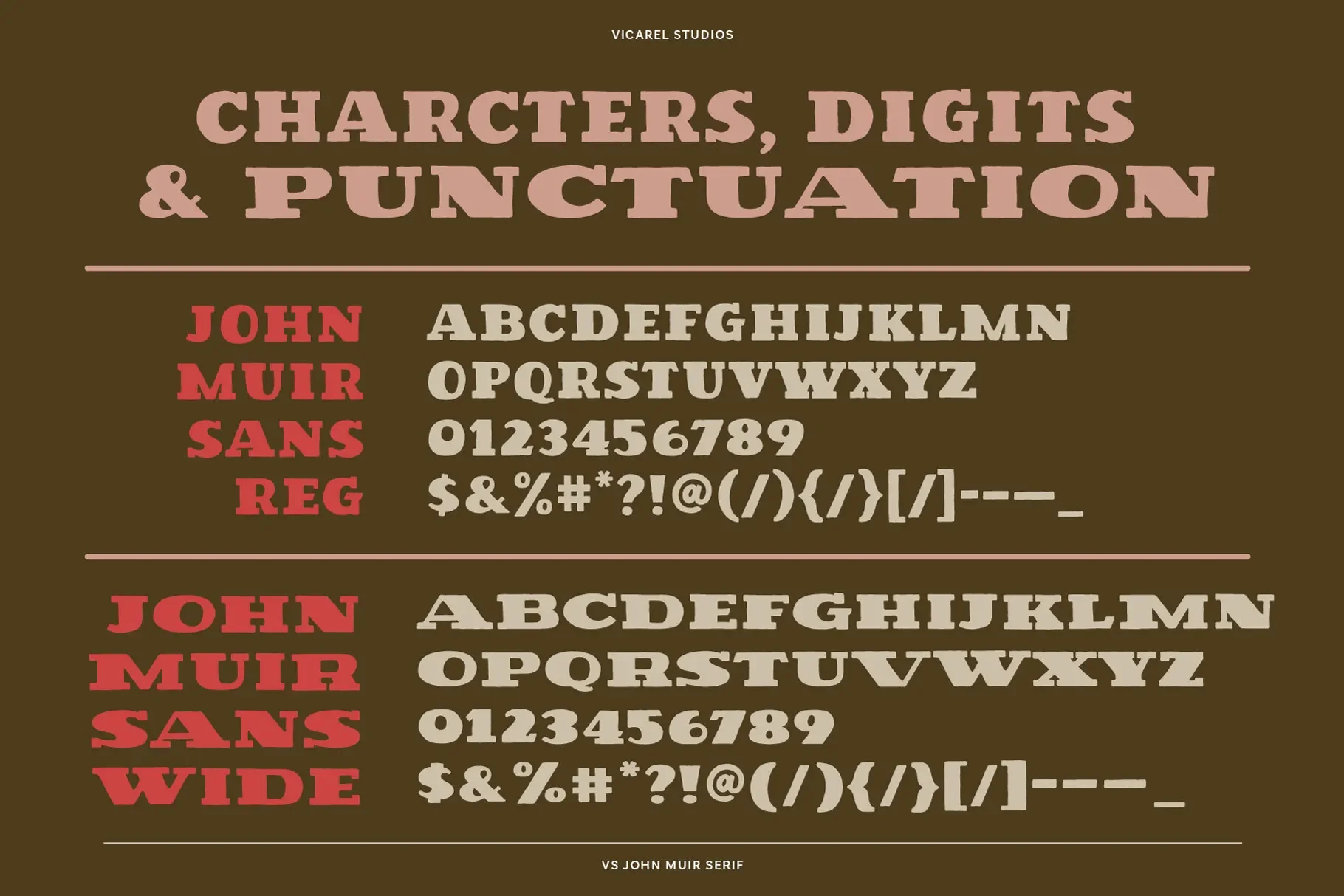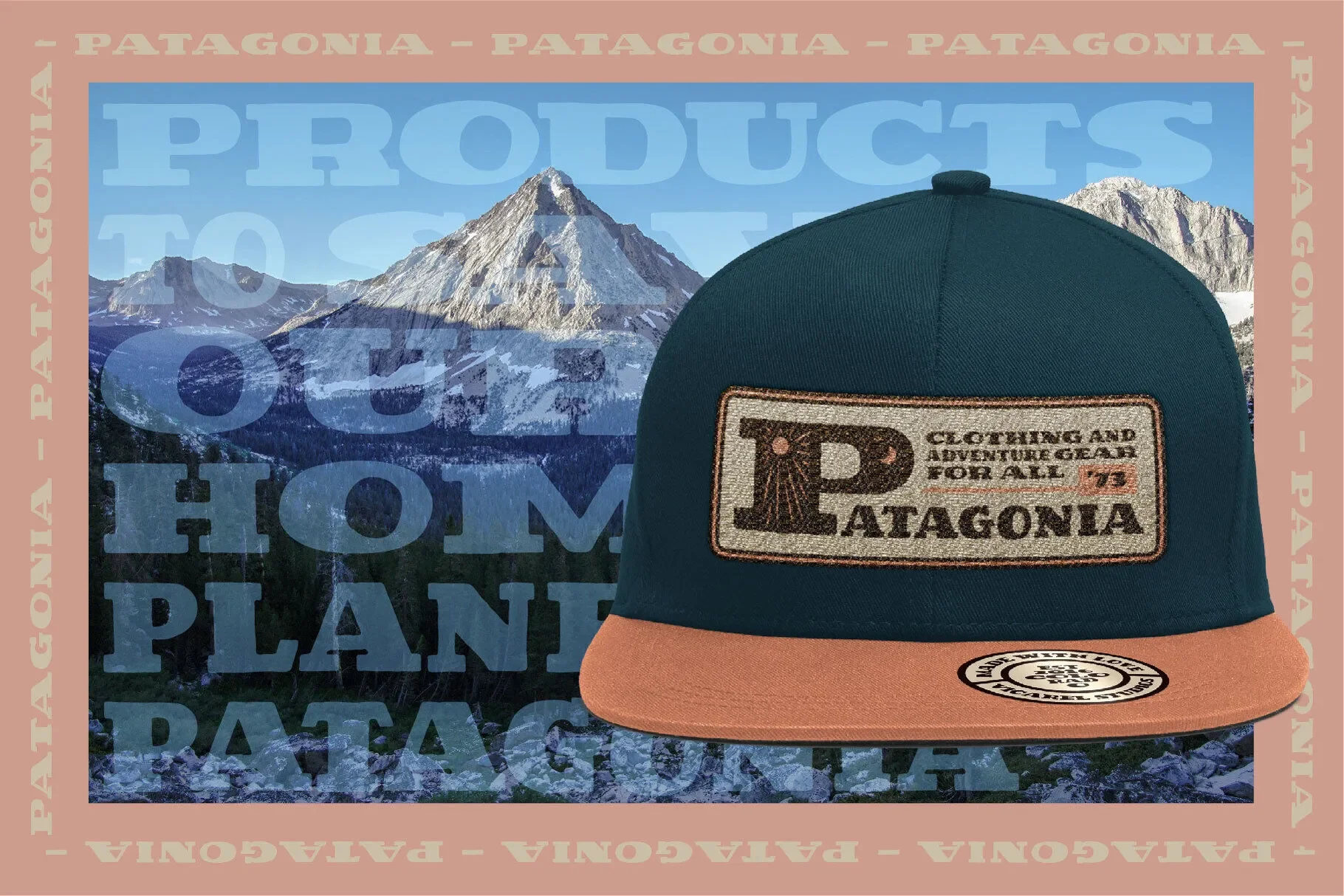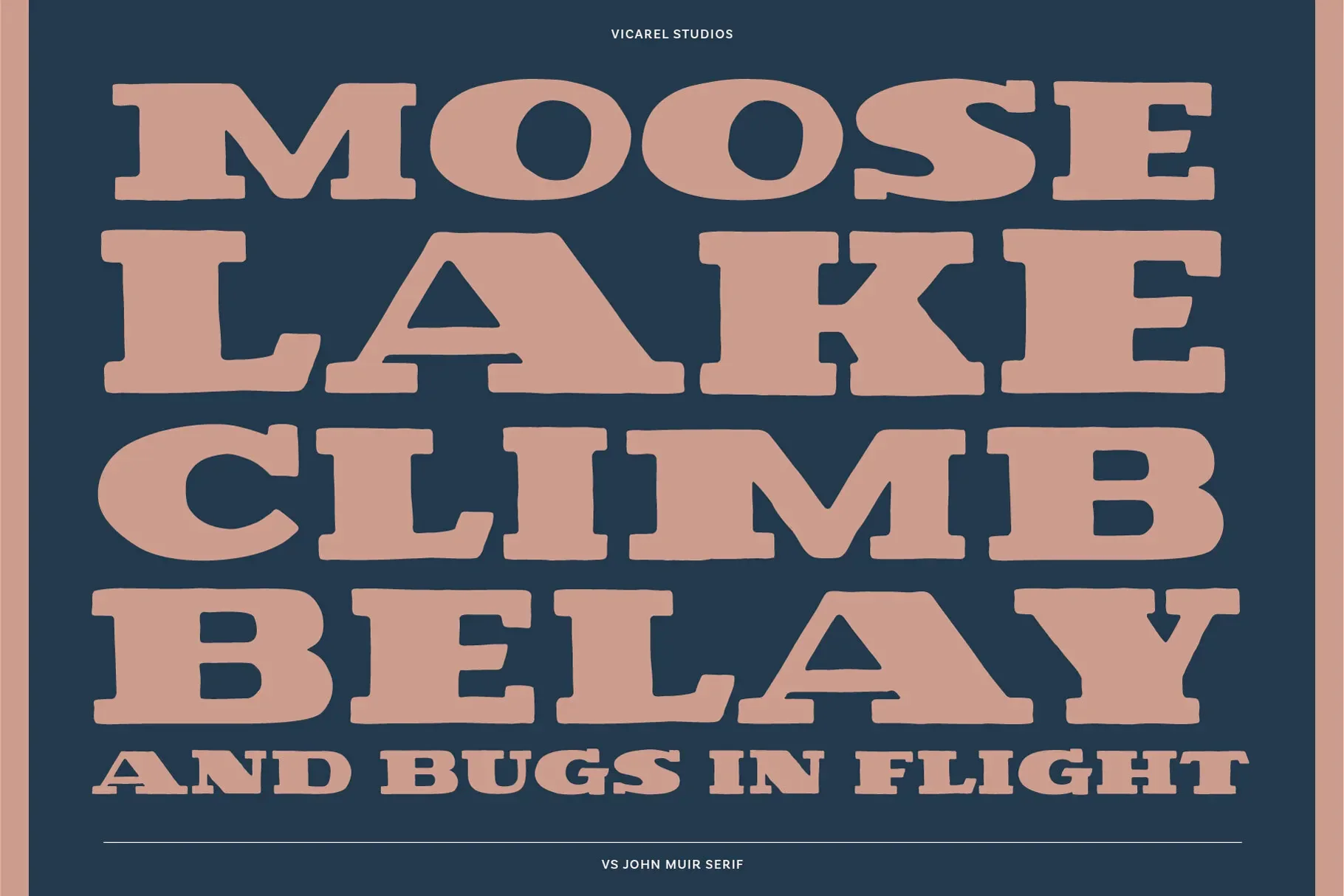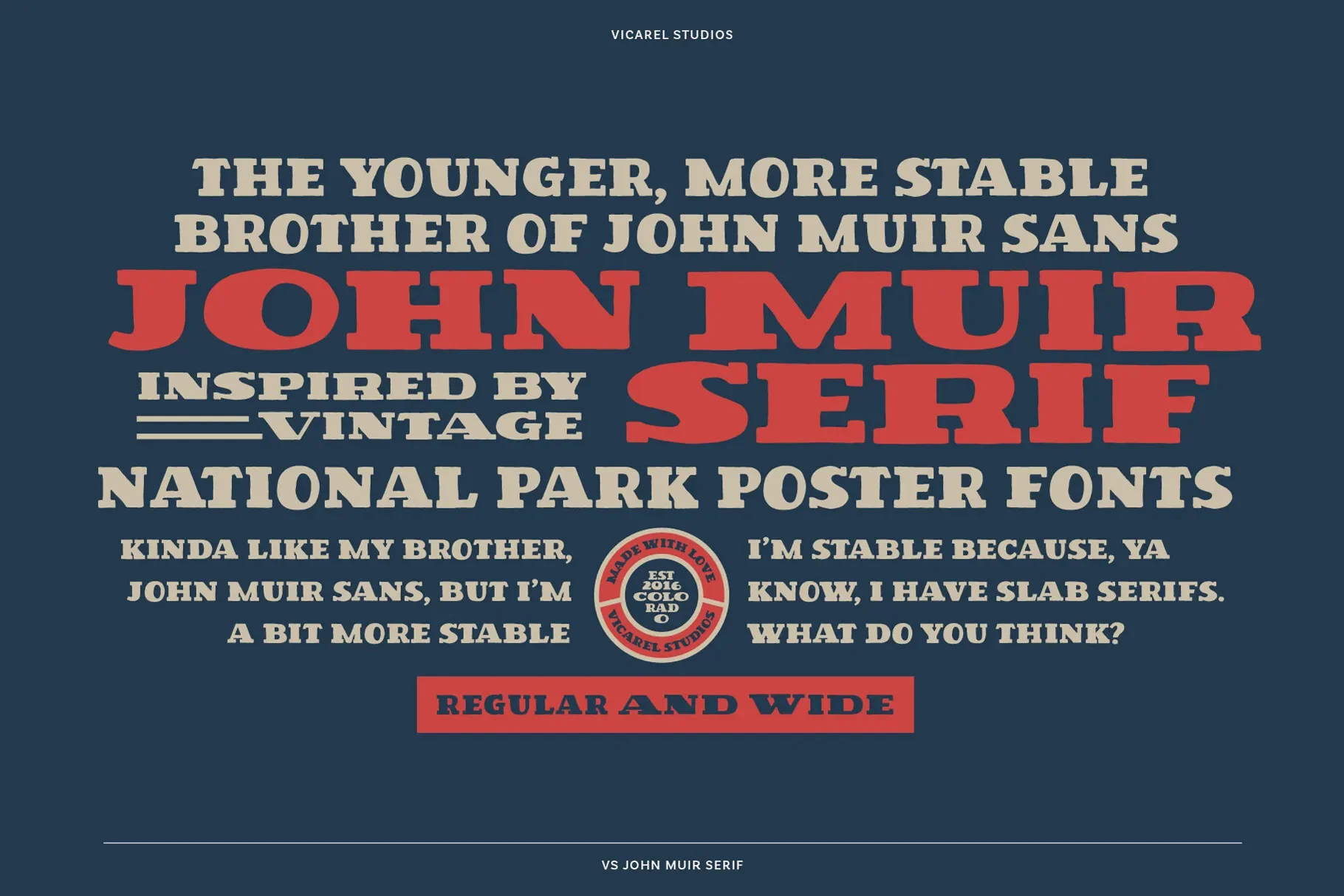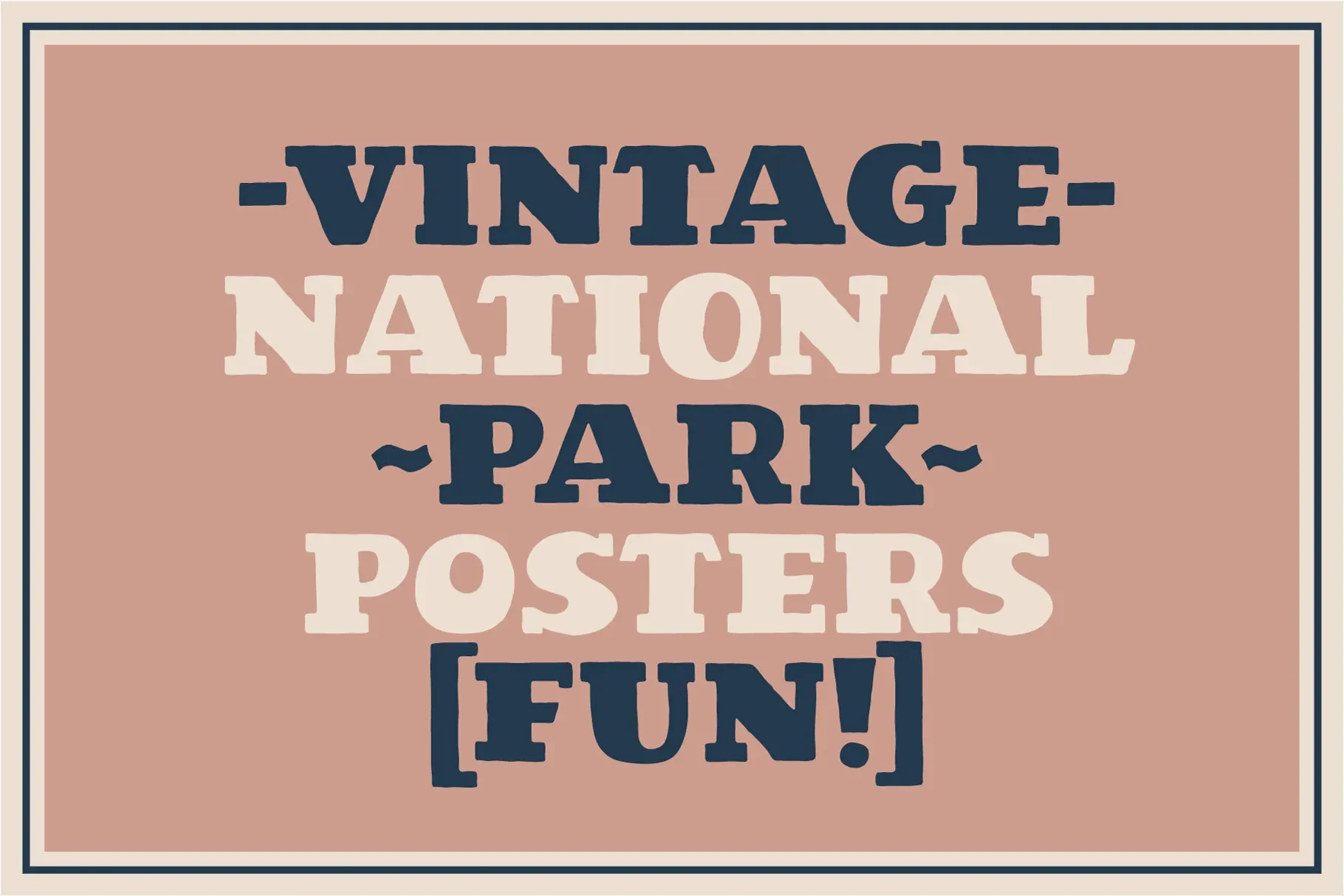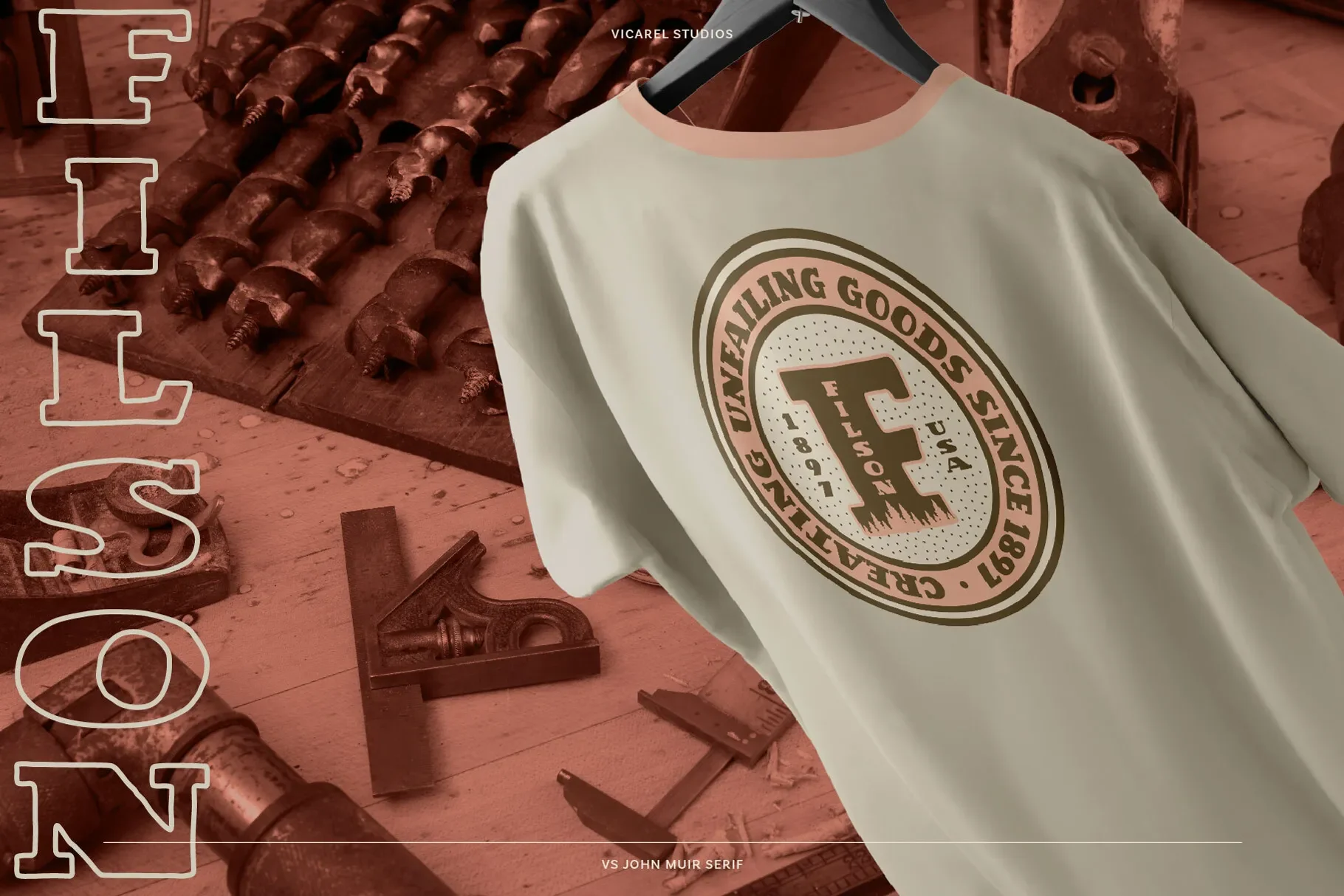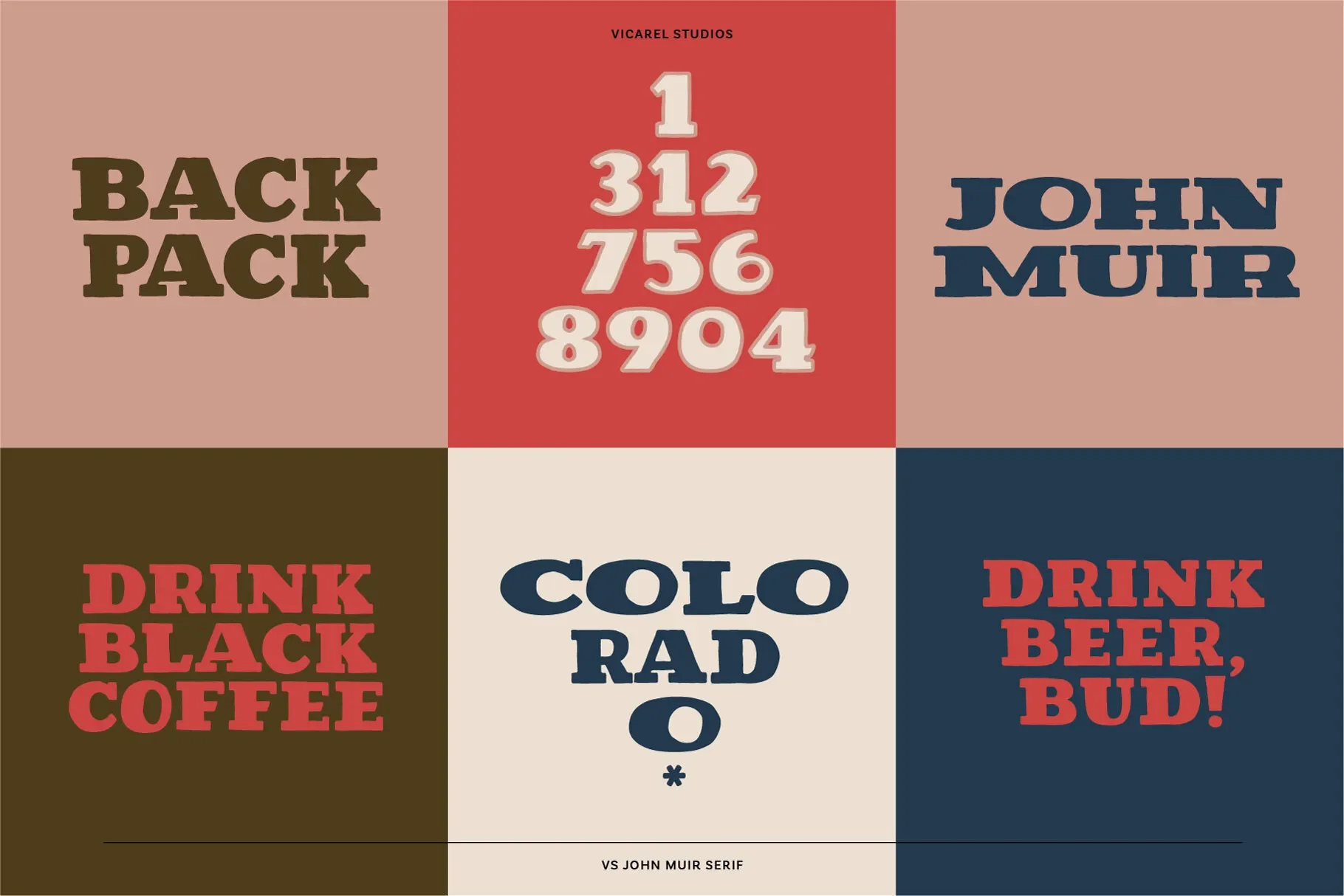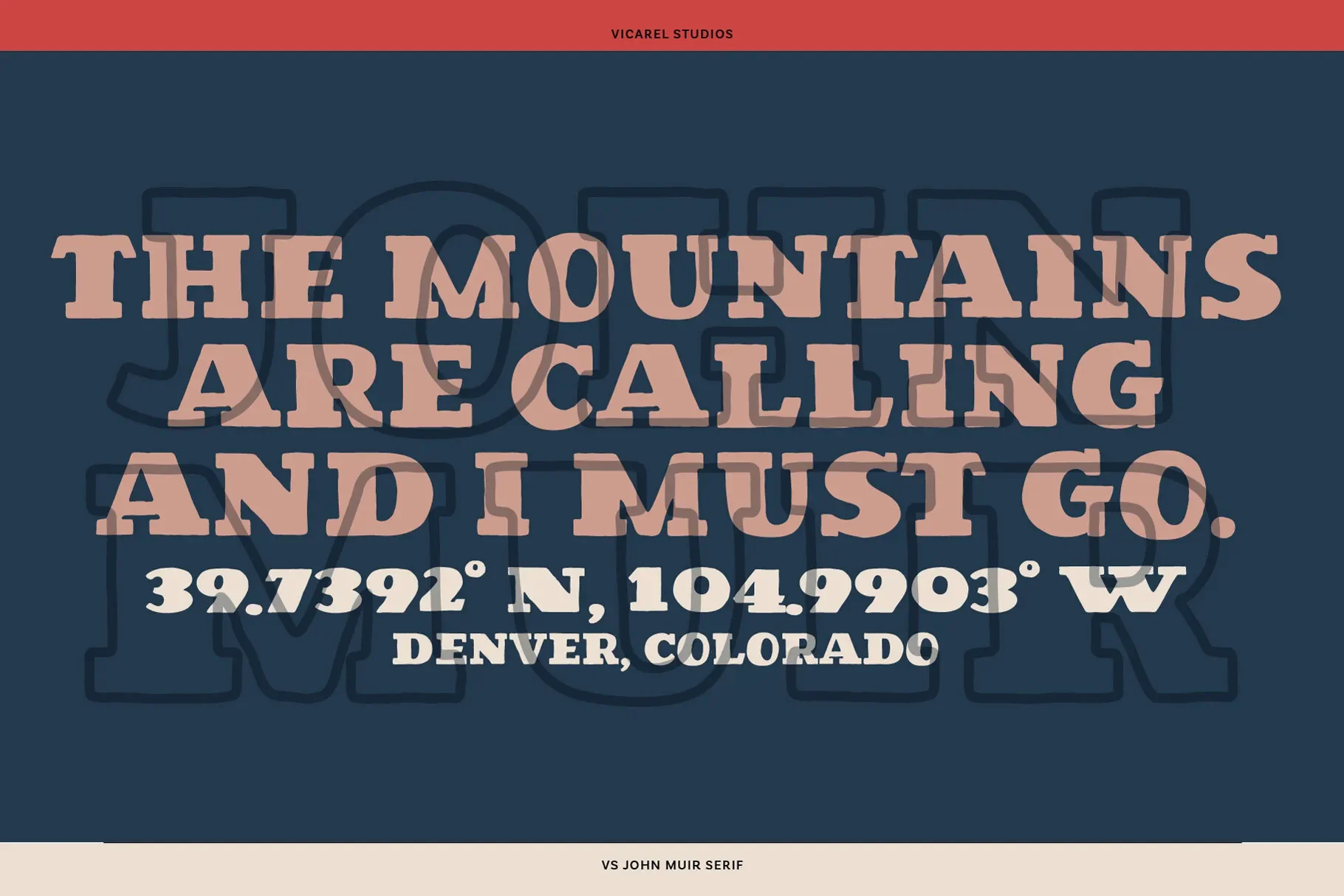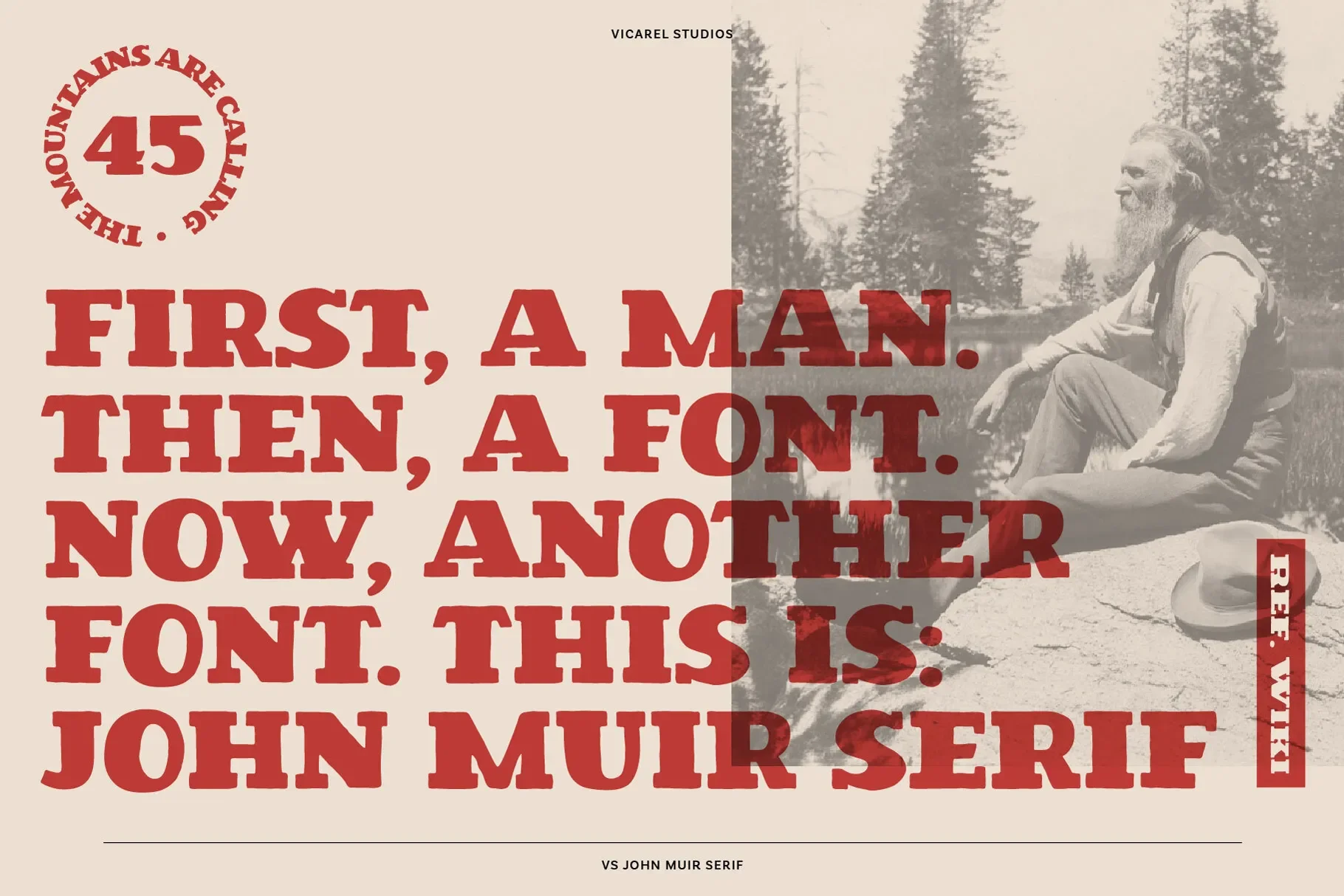
John Muir Serif: A National Park Poster Font
John Muir Serif is a strong and stable slab serif evolution of our first font, John Muir Sans.
A sturdy and pronounced slab serif font inspired by vintage National Parks poster fonts, John Muir Serif was created to pair with John Muir Sans.
Immediately iconic for logo design and branding, t-shirt and apparel design, or any other graphic design needs.
This font was created so that you can create beautiful, rustic logos, packaging designs, and apparel designs, and so much more—the possibilities are endless!
You're looking for a hand drawn look, but don't have the skillset or time to create it, John Muir Serif is here to help!